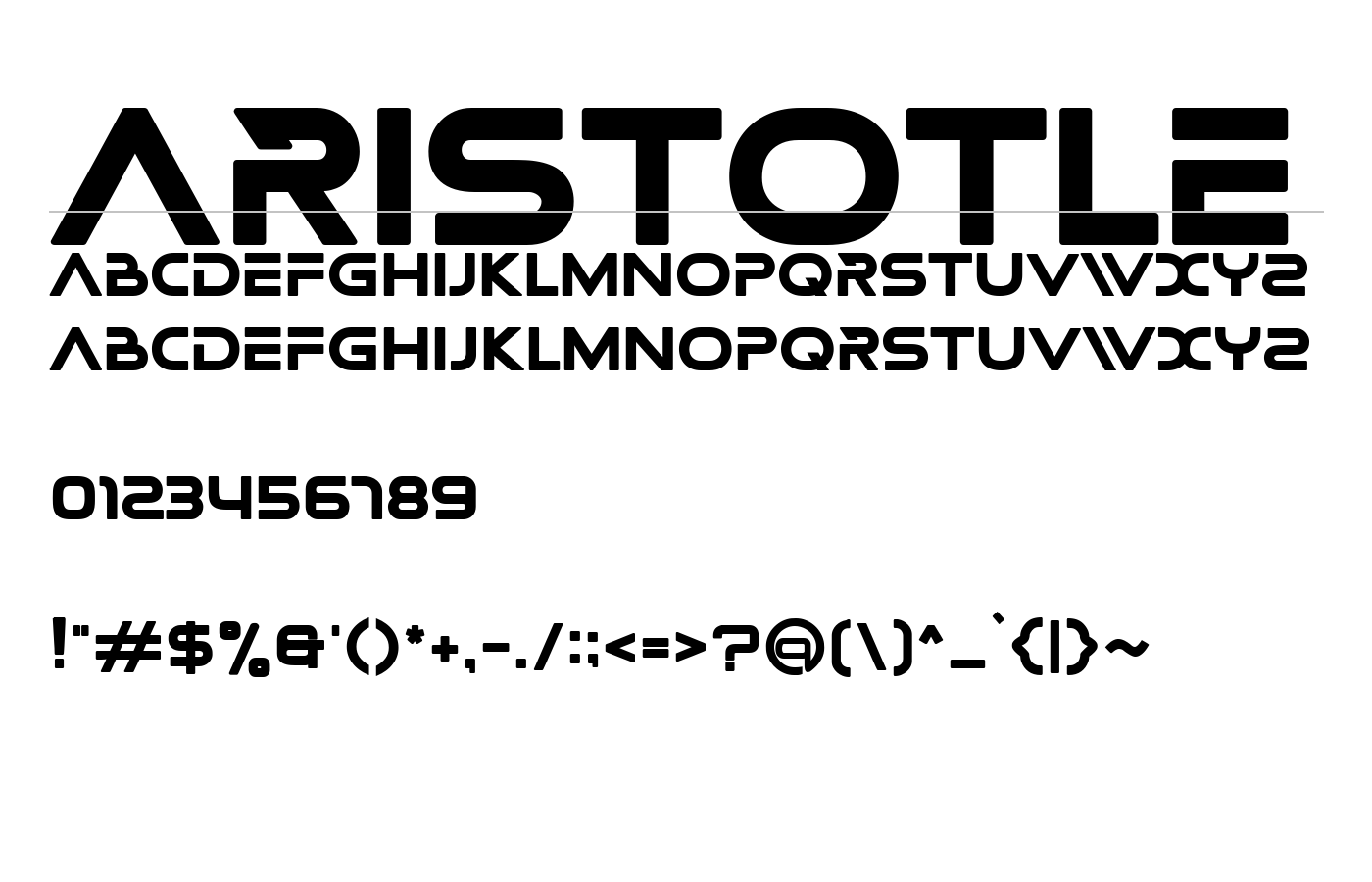
ARISTOTLE is a bold, futuristic sans serif font featuring strong geometric shapes and a sturdy, modern feel. Its distinctive cut and angled edges give it a dynamic and technical personality, making it ideal for tech brands, logos, and headlines that seek a cutting-edge, innovative look. With its clean lines and wide letterforms, it commands attention while maintaining good readability for display use.
ARISTOTLE Font
About ARISTOTLE Font